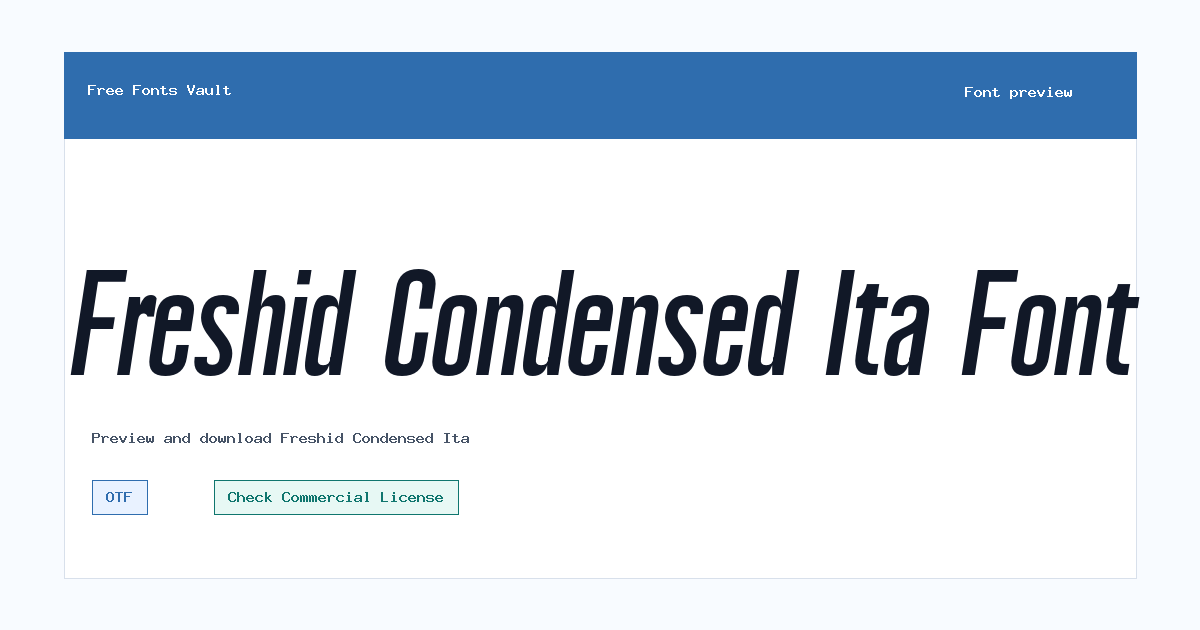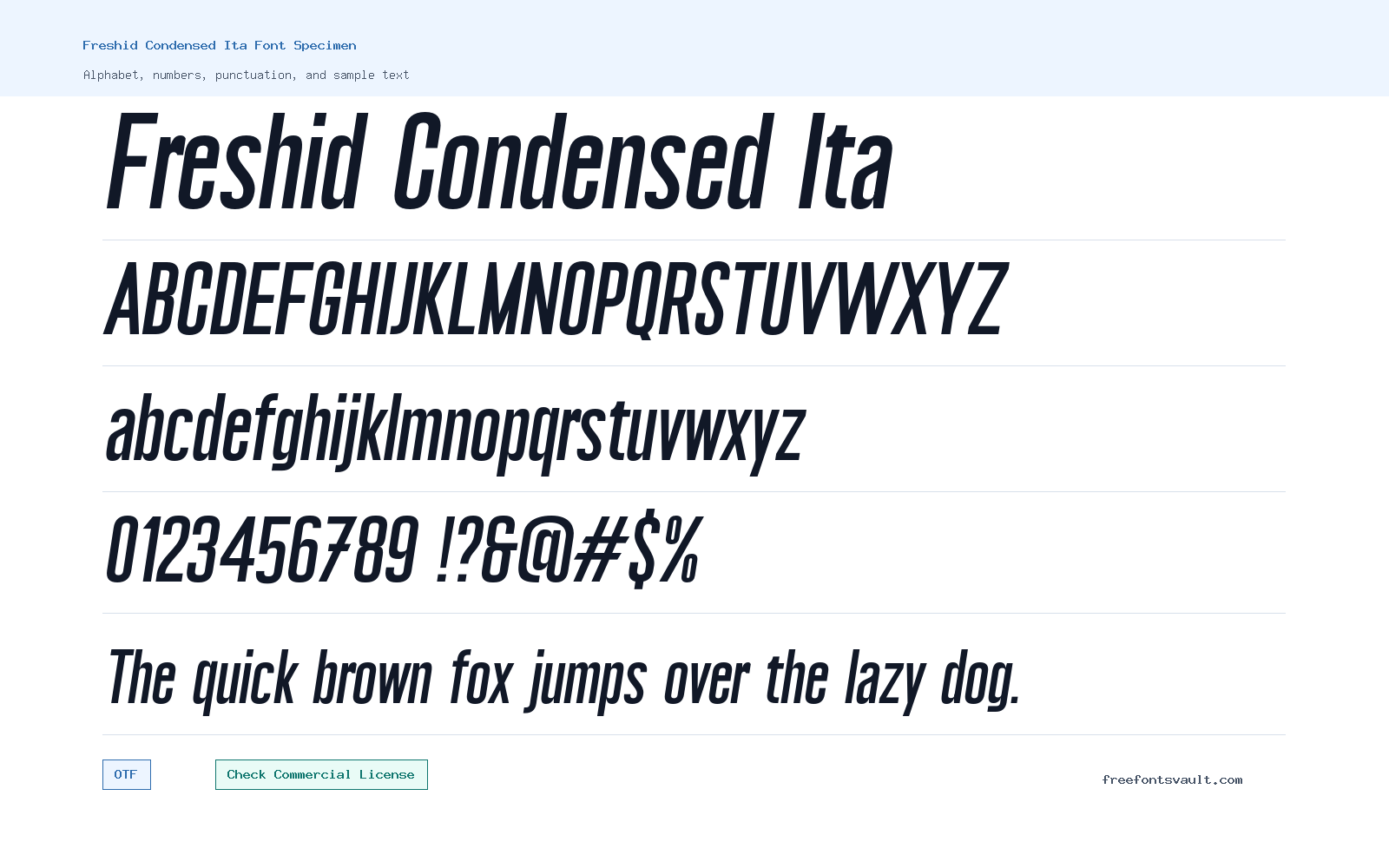
Freshid Condensed Ita
- Designer Wafi ZImamul
- Foundry Wappitype
Freshid Condensed Ita font.
Freshid Condensed Ita is a narrow italic display font suited to headings, posters, labels, and other short pieces of text that need a slanted, space-saving look.
About Freshid Condensed Ita
Freshid Condensed Ita comes in OTF format and includes two styles: a regular italic cut and a bold italic cut. Its condensed shape helps fit longer words into tight spaces, while the italic angle gives text more movement than a straight upright face. Use it when you want a compact headline or accent line rather than a quiet reading font.
The regular style is useful for lighter titles, captions, and design accents, while the bold italic style can carry stronger headings or short callouts. Because the family is condensed and italic, it is best tested at the exact size you plan to use. Check spacing, punctuation, and longer words in the preview before using it in logos, packaging mockups, web banners, thumbnails, or print layouts.
- Condensed italic design for compact headlines and display text
- Posters, banners, thumbnails, and social graphics
- Short headings, labels, badges, and brand-style mockups
Freshid Condensed Ita is credited to Wafi ZImamul, with Wappitype listed as the foundry.
Use Freshid Condensed Ita for short text where the condensed italic style can stay clear. Avoid long paragraphs, small body text, or crowded layouts unless your preview test shows the spacing remains readable. Use this italic cut when the layout needs movement but not heavy weight. It works well for a secondary headline, an angled label, or a short phrase paired with the upright Freshid Condensed style. Keep the line length modest, because condensed italic text can feel tight when too many words are placed on one row. For best results, preview it in the final color and size before download, especially if the text will appear in a small mobile image or narrow banner.
How many styles are included?
The family includes a regular italic style and a bold italic style.
Is Freshid Condensed Ita good for body text?
It is better for headings and short display text. Its condensed italic shape may become harder to read in long paragraphs or very small sizes.
Who designed Freshid Condensed Ita?
The font is credited to Wafi ZImamul, with Wappitype listed as the foundry.